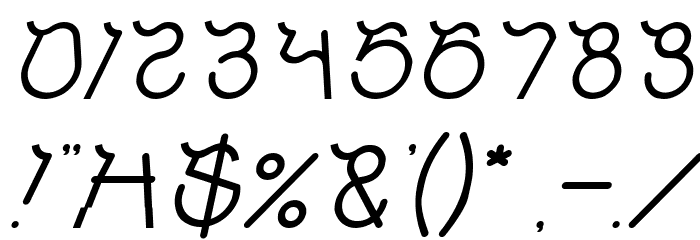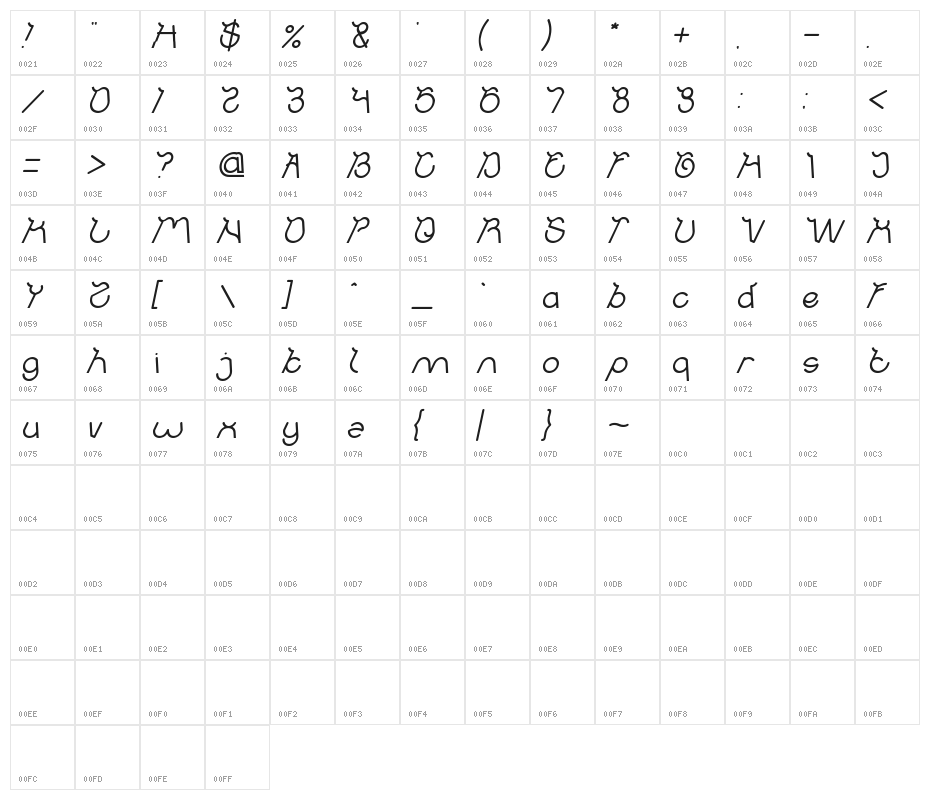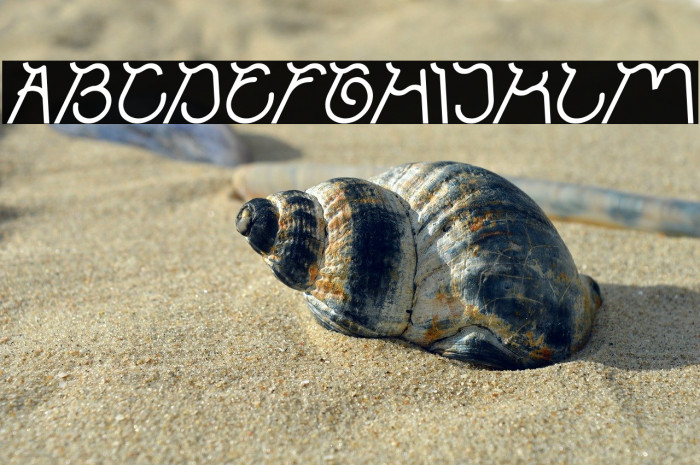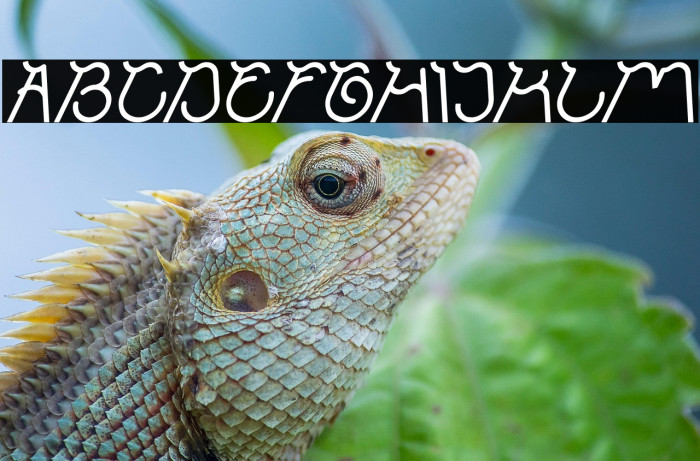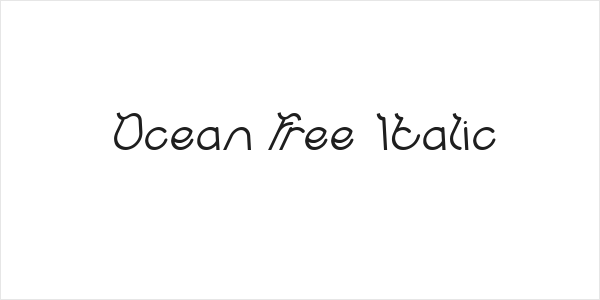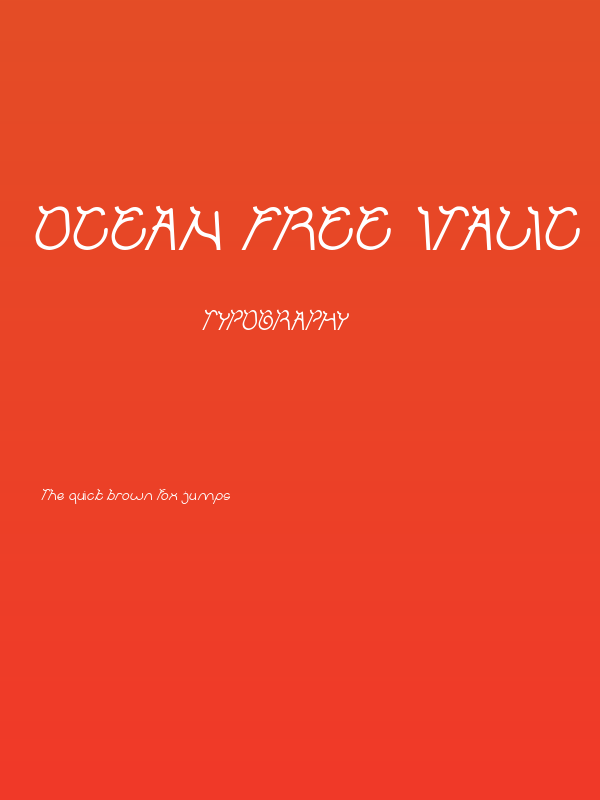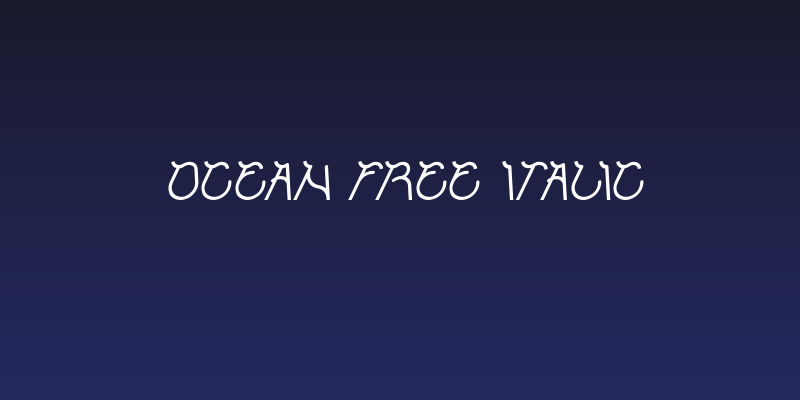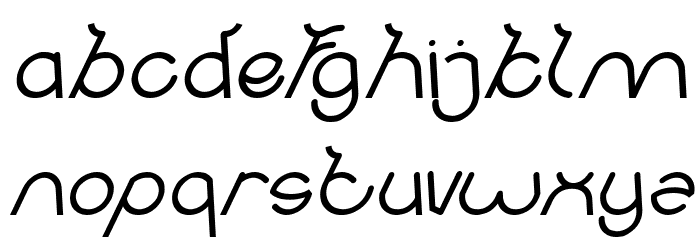
Ocean Free Italic Font
Ocean Free Italic Description
This font features a playful and dynamic style with a handwritten appearance. The letters are slightly slanted, giving it an italicized look, and the strokes are smooth and flowing. The uppercase letters have a unique flair with some characters incorporating loops and curves that add to the whimsical nature. The lowercase letters maintain a consistent style, complementing the uppercase with their rounded forms. Numbers and special characters follow the same design principles, ensuring uniformity across the font. The overall impression is one of creativity and informality, making it suitable for projects that require a personal touch.
| Proposed Projects | Ideal for greeting cards, invitations, children's books, and creative branding projects. |